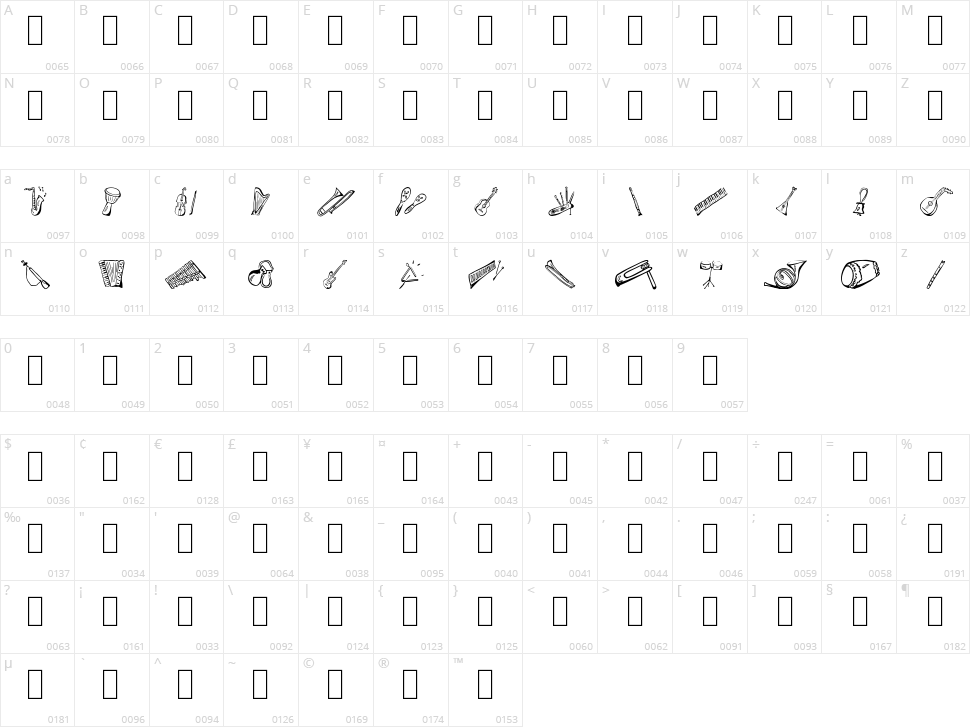
Music for a while
A FONT FOR FREE ! "MUSIC FOR A WHILE"
This font contains 26 attractive dingbats that you can get
CETTE POLICE DE DINGBATS "MUSIC FOR A WHILE" VOUS EST OFFERTE PAR
Cette police contient 26 dessins sympas que vous obtiendrez
Designer Name: Fraternet